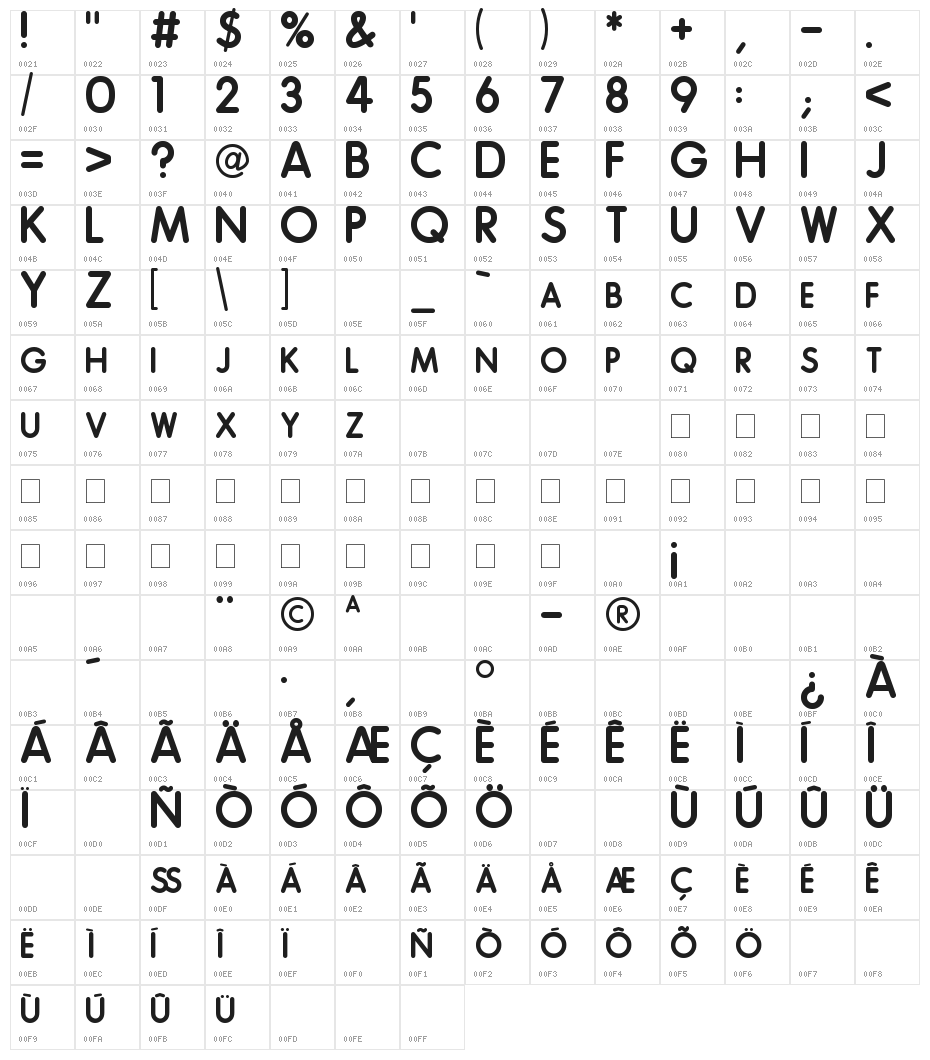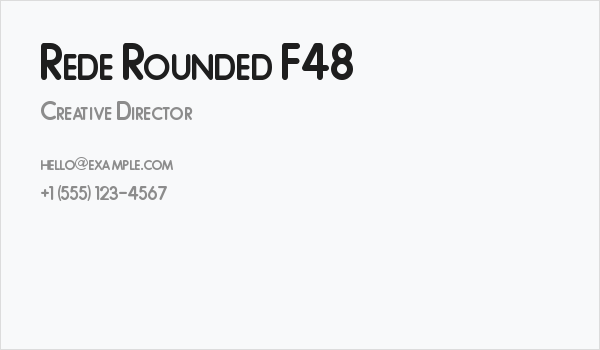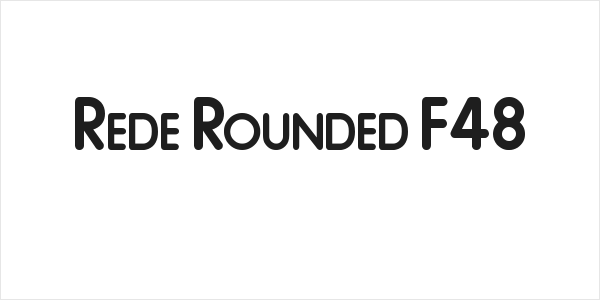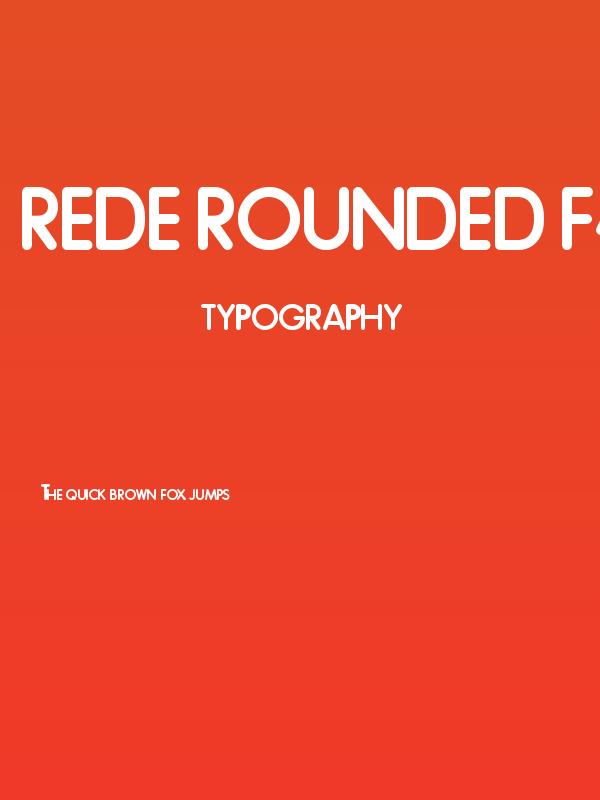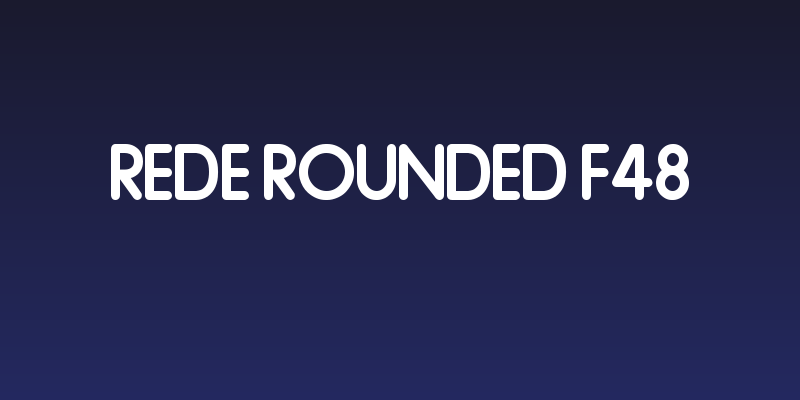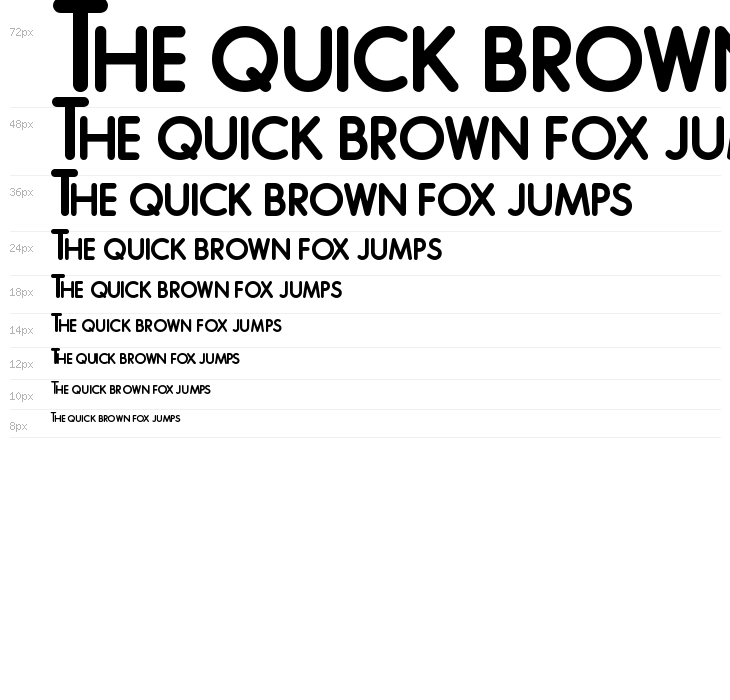
Rede Rounded F48 Font
Rede Rounded F48 Description
This font features a clean and modern design with rounded edges that give it a friendly and approachable appearance. The characters are evenly spaced, providing a balanced and harmonious look. The rounded terminals and consistent stroke width contribute to its smooth and fluid style, making it highly legible. The font includes a full set of uppercase and lowercase letters, numerals, and a variety of special characters, ensuring versatility for different design needs. Its simplicity and clarity make it suitable for both digital and print media, offering a contemporary aesthetic that is both professional and inviting.
Overall StyleModern
Use CaseHeadlines, Body text, Logos
Proposed ProjectsIdeal for branding, advertising, web design, and user interfaces.